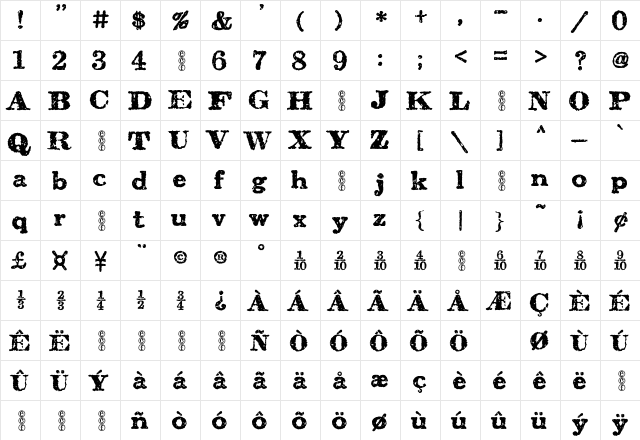
carbondale eval Regular Font Preview
carbondale eval Regular
carbondale eval Regular Font Details
Design Context for carbondale eval Typeface
carbondale eval is a composed and adaptable typeface that performs quietly and consistently across a wide range of design contexts.